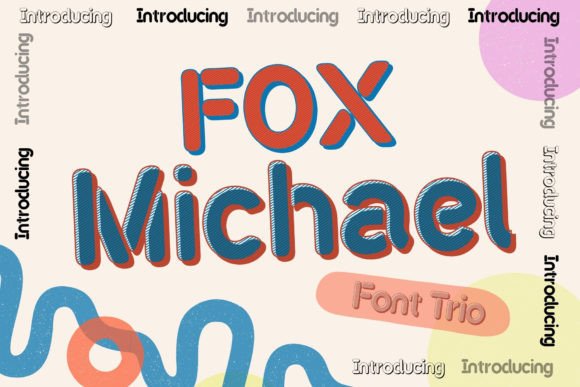
Introducing Fox Michael Font: A Charming and Inviting Cool Typeface
Are you tired of using the same old fonts in your publications, menus, logos, and business cards? Do you want to add a touch of uniqueness and personality to your designs? Look no further than Fox Michael Font, a charming and inviting cool typeface created in 3 styles. In this article, we’ll explore the features and benefits of Fox Michael Font, and why it’s a valuable addition to your font library.
Key Features of Fox Michael Font
- 3 Unique Styles: Fox Michael Font comes in 3 distinct styles, each with its own character and charm. Whether you’re looking for a bold and playful font or a more elegant and sophisticated one, Fox Michael Font has got you covered.
- Charming and Inviting: Fox Michael Font is designed to be charming and inviting, making it perfect for use in a variety of design projects, from publications and menus to logos and business cards.
- Cool Typeface: Fox Michael Font has a cool and modern vibe that’s sure to make your designs stand out from the crowd.
- Unique and Versatile: Fox Michael Font is a unique and versatile font that can be used in a wide range of design projects, from print to digital.
Ideas for Using Fox Michael Font
Fox Michael Font is a versatile font that can be used in a variety of design projects. Here are some ideas to get you started:
- Publications: Use Fox Michael Font in your publications, such as magazines, newspapers, and brochures, to add a touch of personality and charm.
- Menus: Add Fox Michael Font to your restaurant or cafe menu to give it a unique and inviting look.
- Logos: Use Fox Michael Font to create a custom logo for your business or brand.
- Business Cards: Stand out from the crowd with Fox Michael Font on your business cards.
- T-Shirts and Merchandise: Print Fox Michael Font on t-shirts, mugs, and other merchandise to create unique and eye-catching designs.
Benefits of Using Fox Michael Font
So why choose Fox Michael Font for your design projects? Here are some benefits of using this charming and inviting cool typeface:
- Uniqueness: Fox Michael Font is a unique and distinctive font that will set your designs apart from the crowd.
- Versatility: Fox Michael Font can be used in a wide range of design projects, from print to digital.
- High-Quality Design: Fox Michael Font is designed to high standards, ensuring that your designs look professional and polished.
Why Fox Michael Font is a Valuable Addition to Your Font Library
As a designer, having a good font library is essential for creating high-quality designs. Fox Michael Font is a valuable addition to your font library for several reasons:
- Variety: Fox Michael Font comes in 3 unique styles, giving you a range of options to choose from.
- Quality: Fox Michael Font is designed to high standards, ensuring that your designs look professional and polished.
- Uniqueness: Fox Michael Font is a unique and distinctive font that will set your designs apart from the crowd.
In conclusion, Fox Michael Font is a charming and inviting cool typeface that’s perfect for use in a variety of design projects. With its 3 unique styles, versatility, and high-quality design, Fox Michael Font is a valuable addition to your font library. Whether you’re a designer, artist, or DIY enthusiast, Fox Michael Font is sure to inspire your creativity and help you create stunning designs.